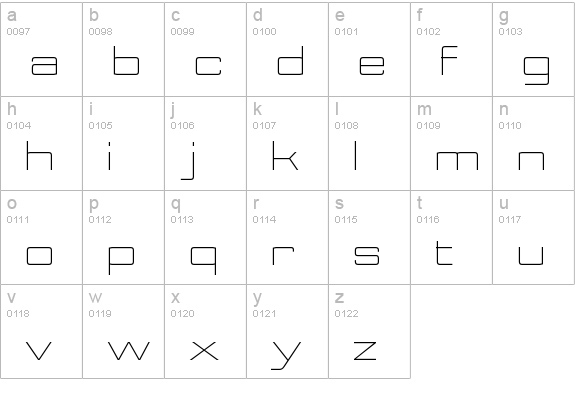
NesobriteExLt-Regular Font Details
NesobriteExLt-Regular is the standard, neutral variant in the NesobriteExLt typeface family \xE2\x80\x94 well suited to general body text, paragraphs, and standard typographic work.
NesobriteExLt-Regular is a modern and elegant font that exudes sophistication and style. With its sleek lines and balanced proportions, this typeface is perfect for a wide range of design projects, from branding to editorial layouts. The clean and minimalist design of NesobriteExLt-Regular lends a timeless quality to any text, making it a versatile choice for both print and digital applications. What sets NesobriteExLt-Regular apart is not just its aesthetic appeal, but also its accessibility. This font is available for free download at FontsMarket.com, making it easy for designers and creatives to incorporate it into their work without any cost barriers. Whether you're working on a personal project or a commercial venture, NesobriteExLt-Regular offers a high-quality and professional typography solution that won't break the bank. Overall, NesobriteExLt-Regular is a must-have font for anyone looking to add a touch of sophistication and elegance to their designs. Its versatility, accessibility, and timeless appeal make it a valuable addition to any designer's toolkit. Download NesobriteExLt-Regular for free today at FontsMarket.com and elevate your projects with this stunning typeface.